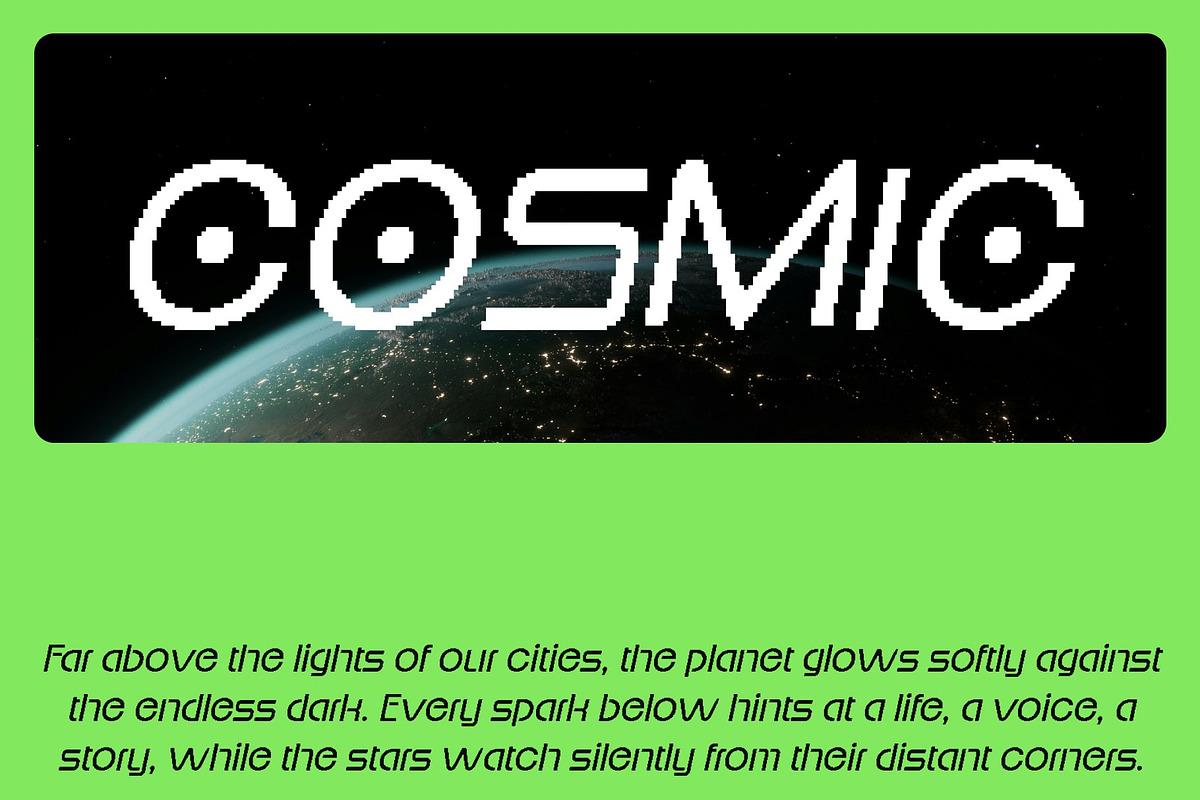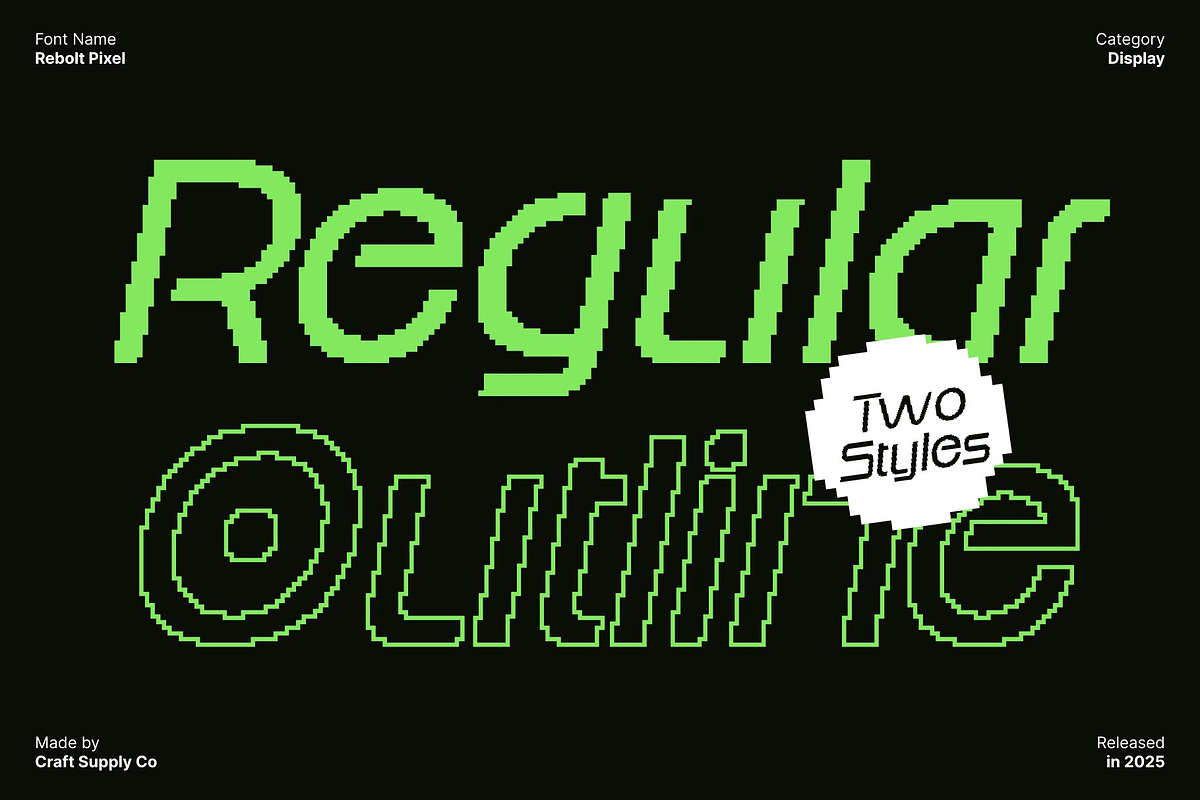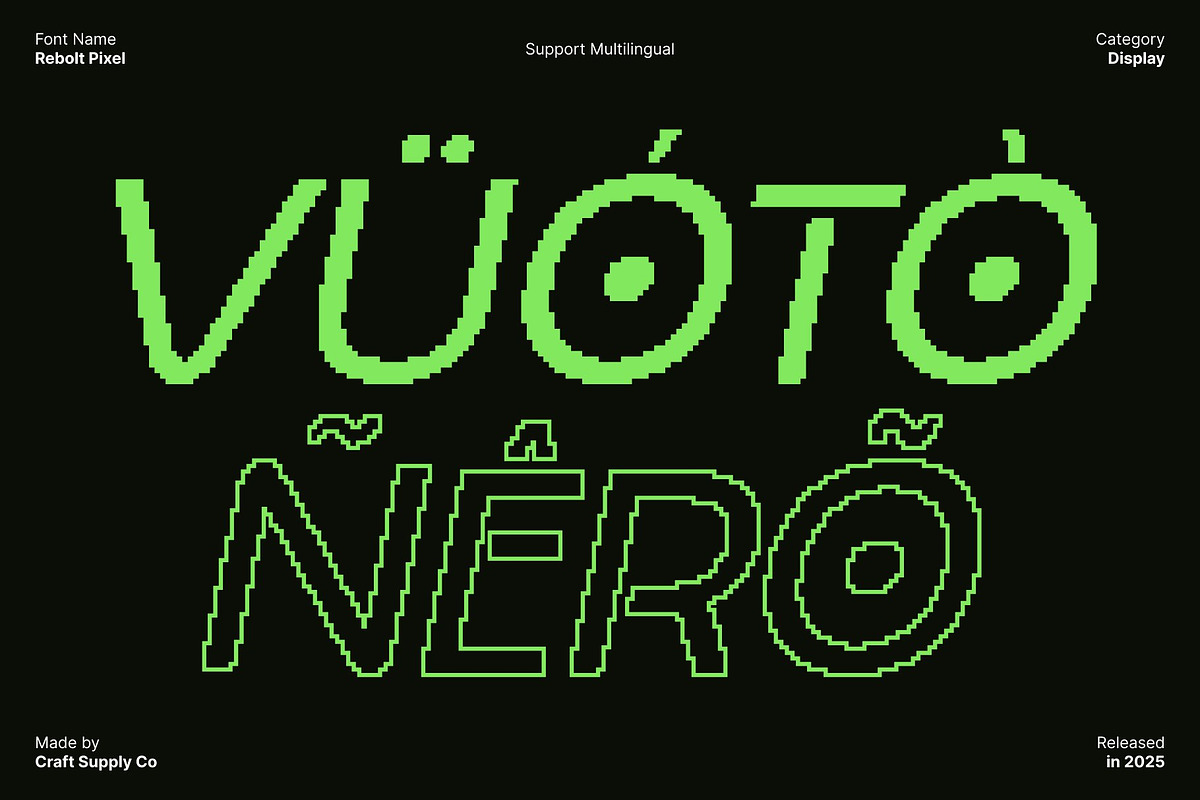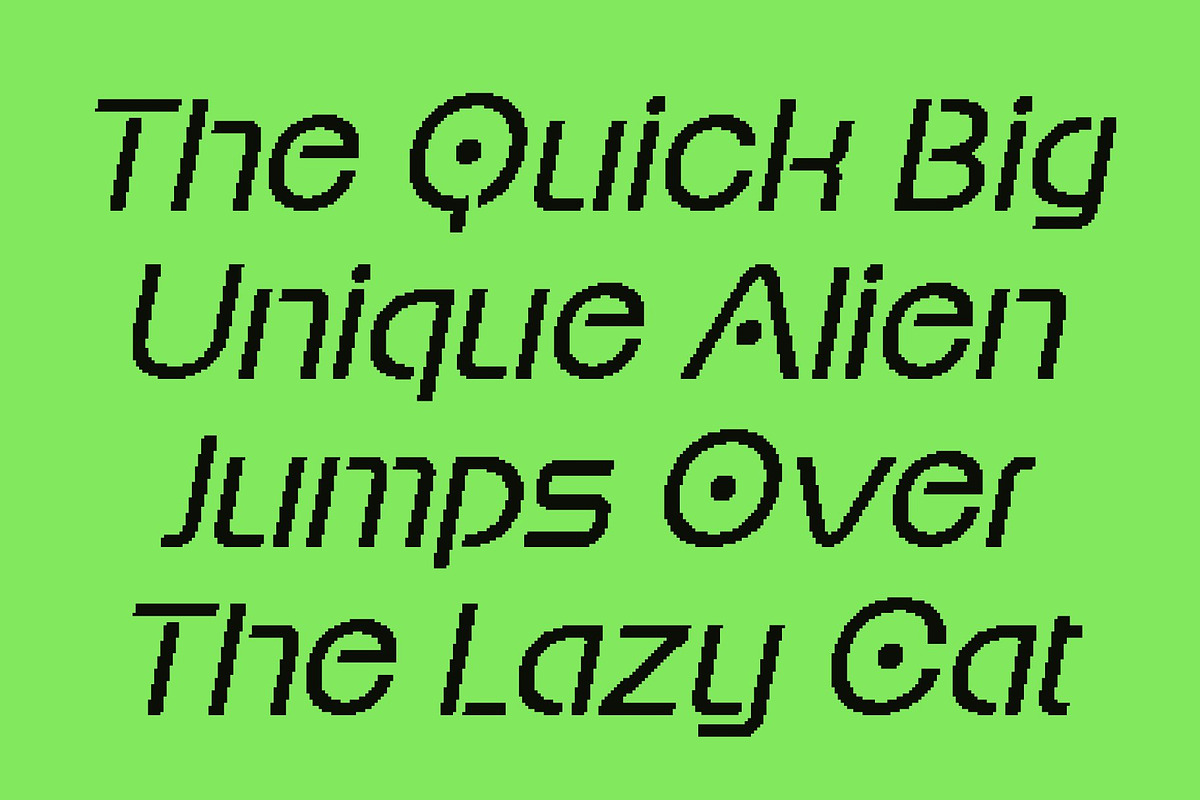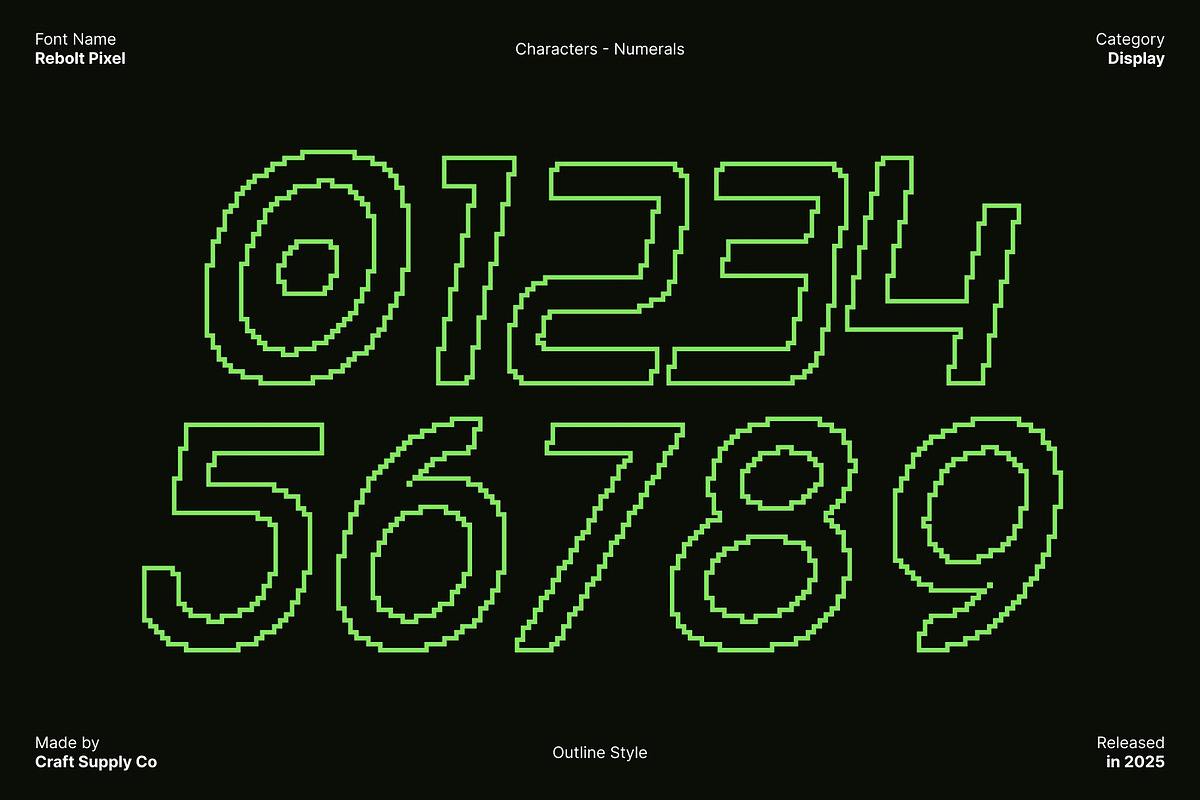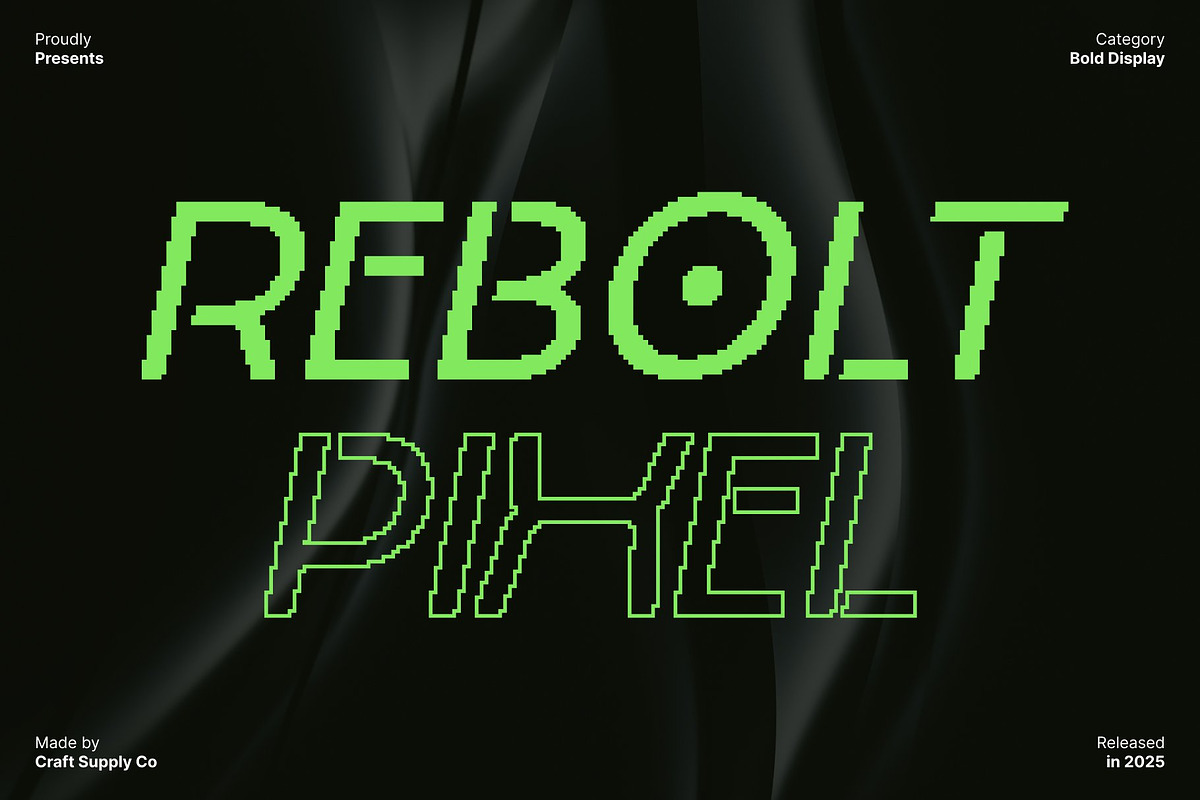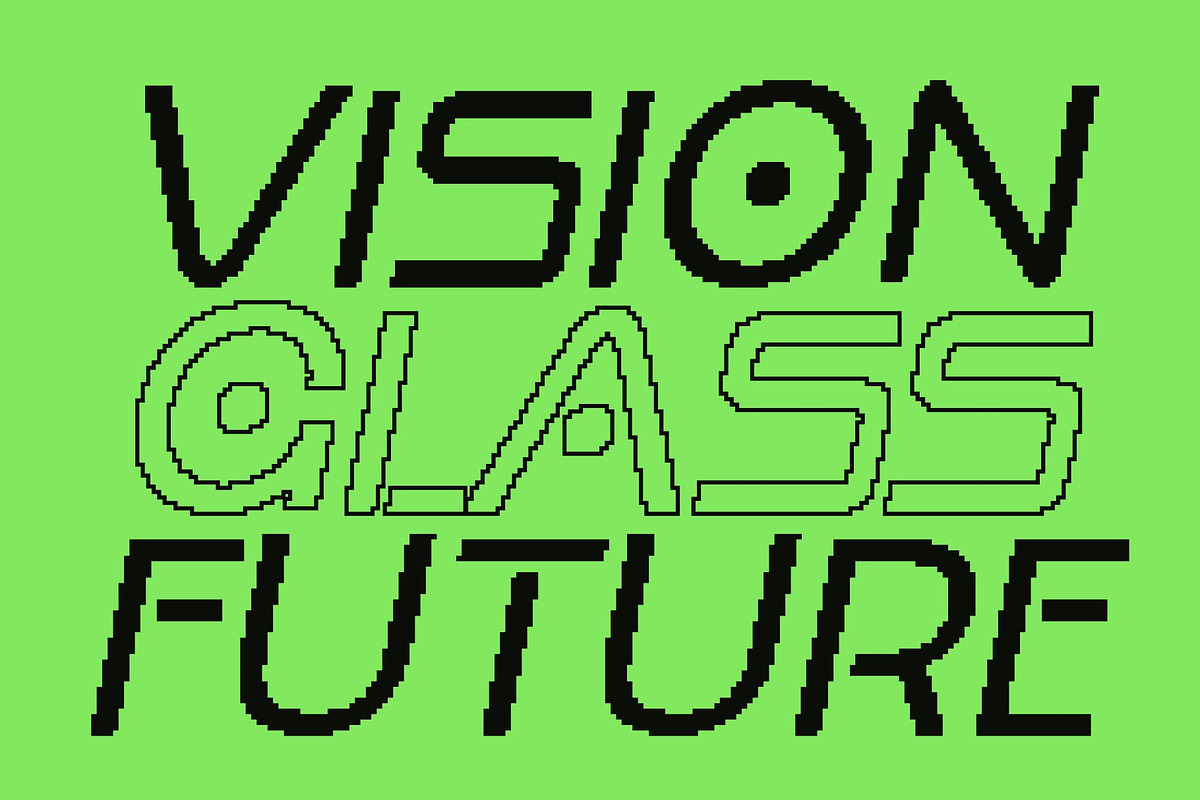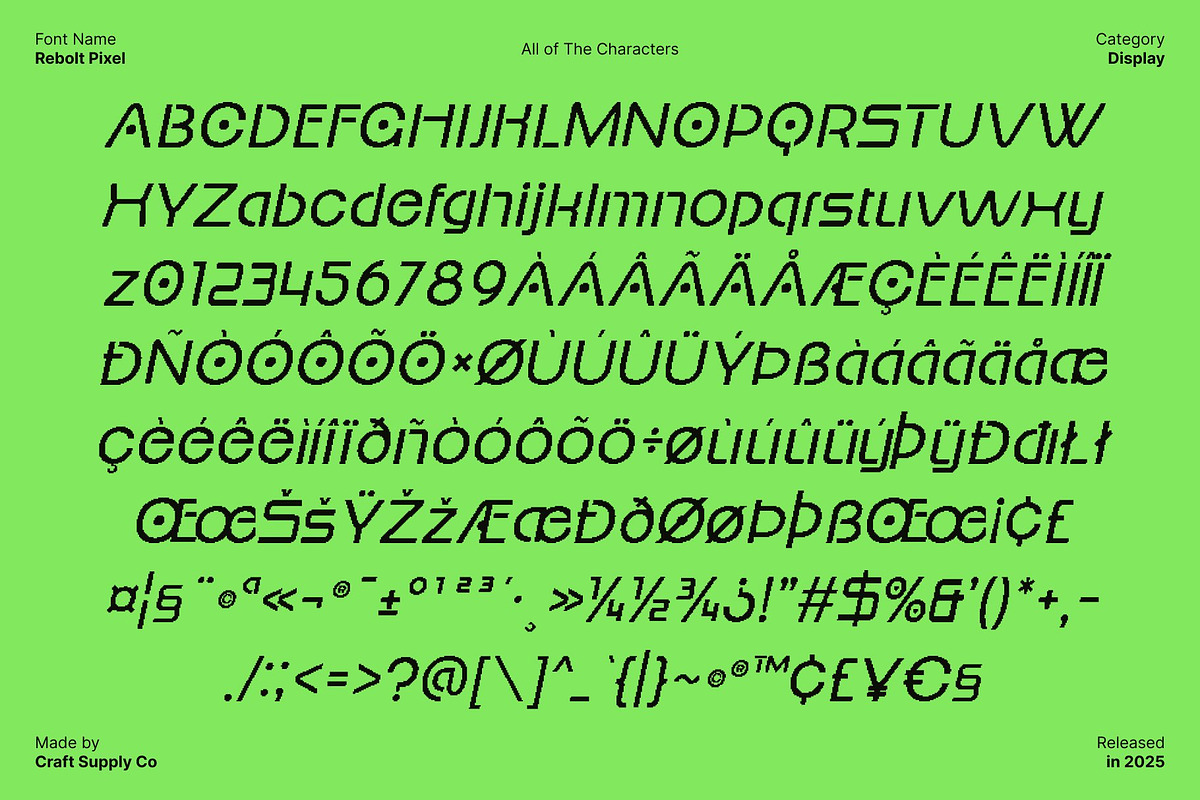
Rebolt Pixel
Rebolt Pixel – Futuristic Sci-Fi Pixel Font with Angular Geometry
A Typeface from Another World This is an otherworldly sci-fi pixel font designed to capture the imagination. Its futuristic forms and angular geometry make it perfect for projects that require a cutting-edge, high-tech aesthetic. Ideal for space-themed movies, video games, or book covers, This font transports designs into a visually striking digital universe.
Angular Geometry for Dynamic, Futuristic Appeal The font’s sharp, angular letterforms convey movement, energy, and modernity. Each character is crafted with precision, giving your compositions a strong sci-fi identity. This font’s geometric structure ensures clarity while maintaining a otherworldly presence perfect for titles, logos, and display purposes.
Neon-Like Strokes and Pixel Texture for Digital Impact Enhanced with neon-inspired pixel strokes, this font introduces a glowing, digital aesthetic that amplifies its futuristic style. The pixel effect adds texture and visual depth, making the typeface ideal for digital branding, gaming interfaces, and futuristic design projects. It combines sci-fi energy with a modern, tech-savvy edge.
Perfect for Space-Themed Movies, Video Games, and Book Covers This font excels in creative projects that demand, futuristic typography. Its angular geometry, neon-like pixel strokes, and sci-fi aesthetic make it perfect for space-themed posters, video game titles, book covers, and digital designs. This font delivers a striking, modern, and visually captivating presence that elevates any project into the future.
- Rebolt Pixel Regular
- Rebolt Pixel Outline